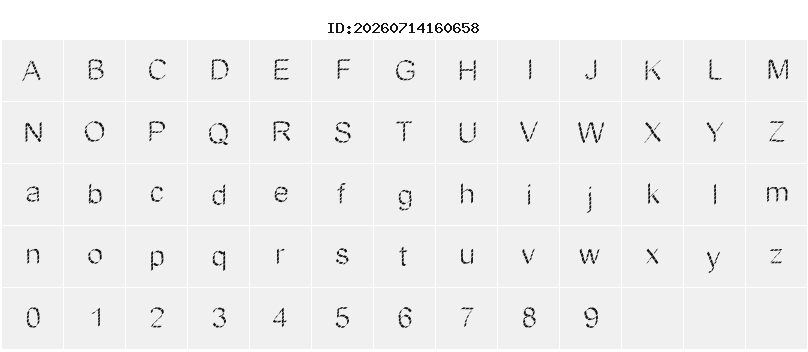
JDFantasyBold Preview
• Font Name: JDFantasyBold
• Full Font Name: JDFantasyBold
• PostScript Name: JDFantasyBold
About JDFantasyBold.ttf
JDFantasyBold.ttf is a modern, elegant sans-serif font designed for ultimate readability and visual harmony. Perfect for branding, headlines, web design, and print materials.